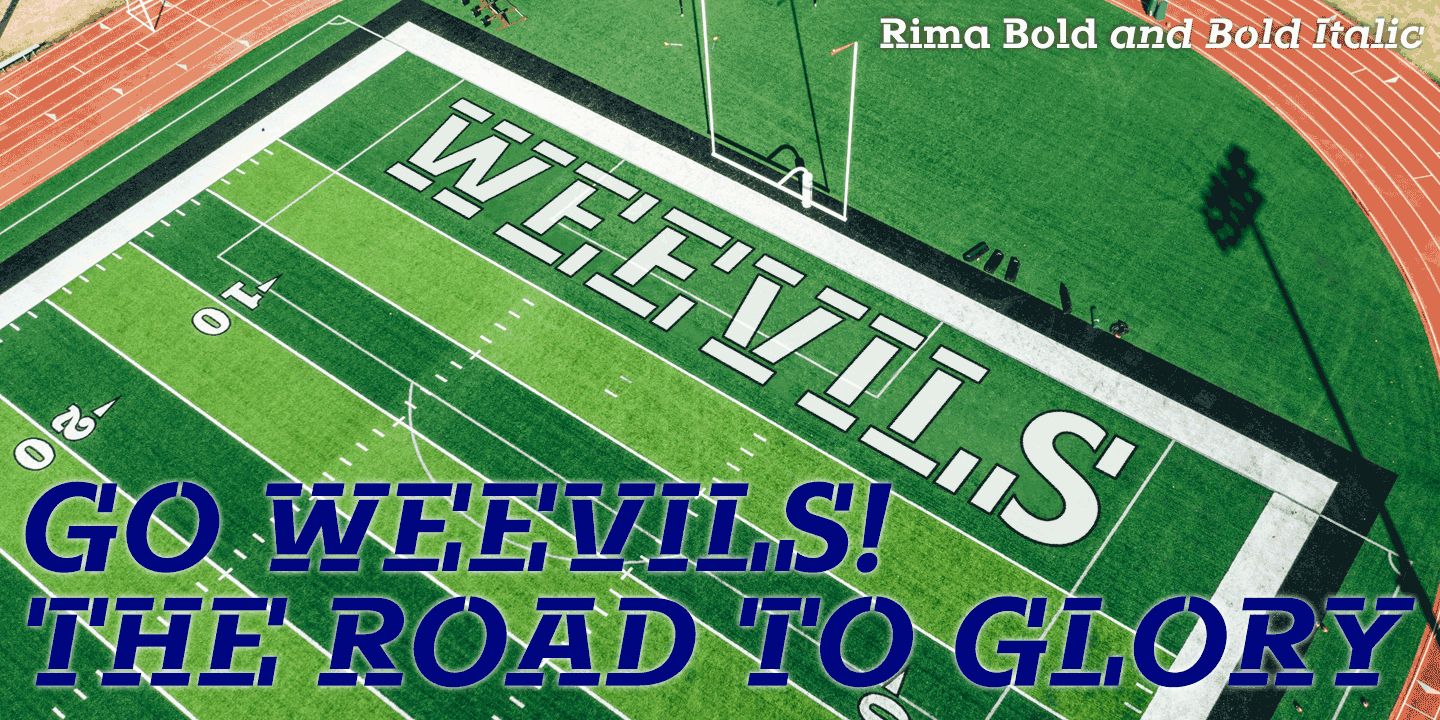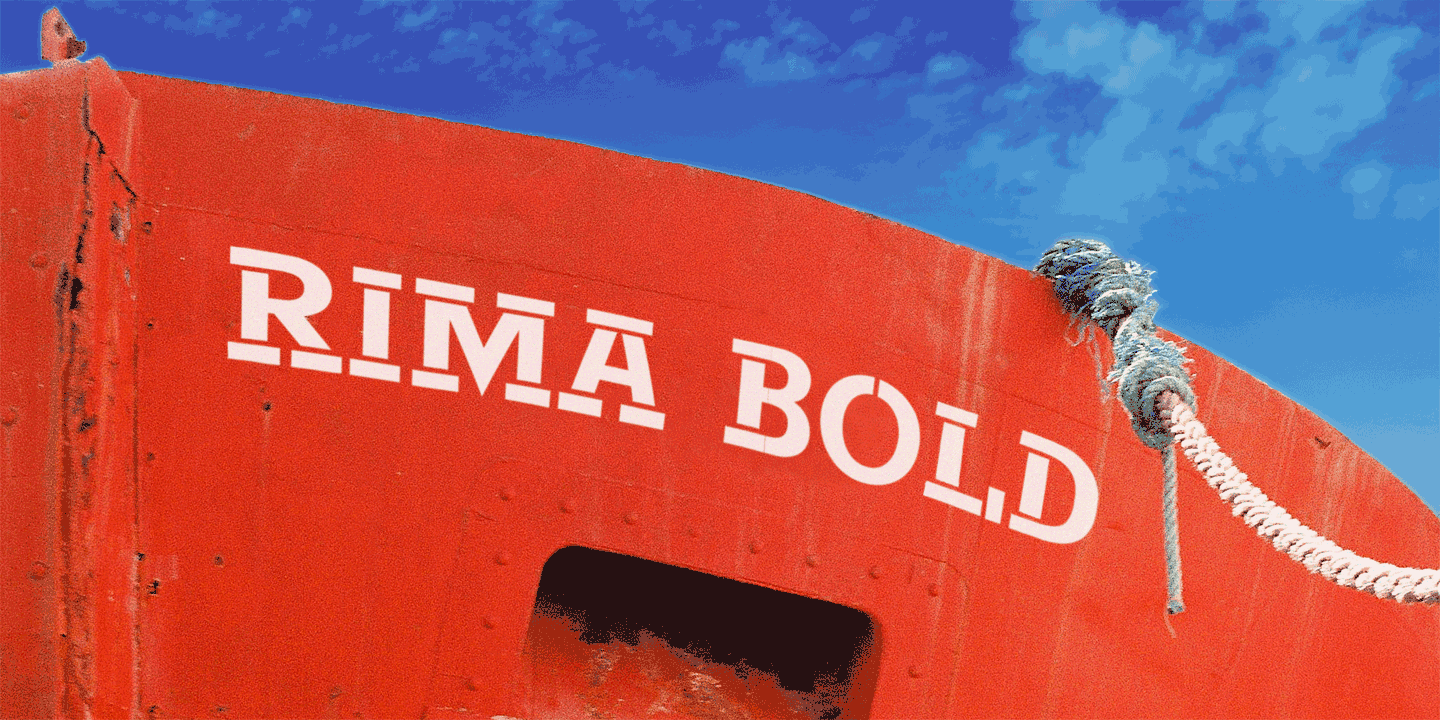
About Rima
Rima is a stencil display face with imposing slab serifs, designed to suggest strength, confidence, expertise and efficiency. Regular and Bold weights are included in the download, plus two handy italics (optically corrected obliques).